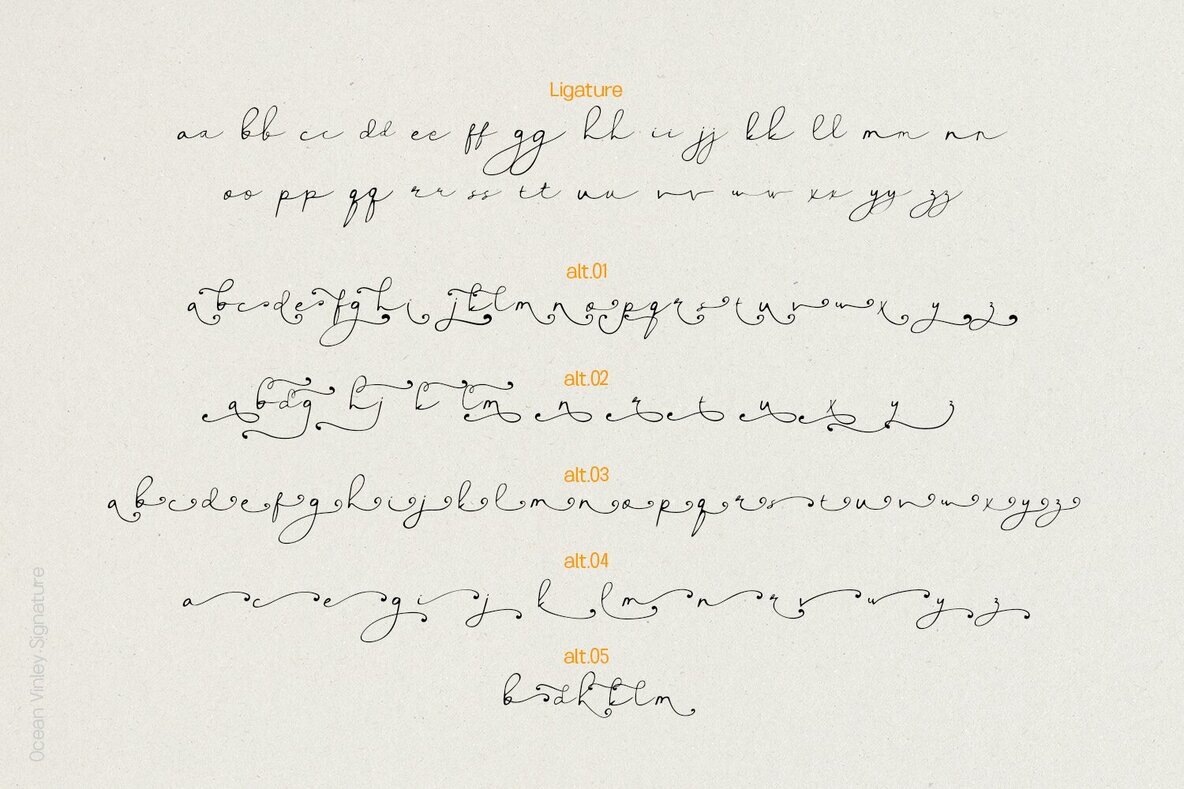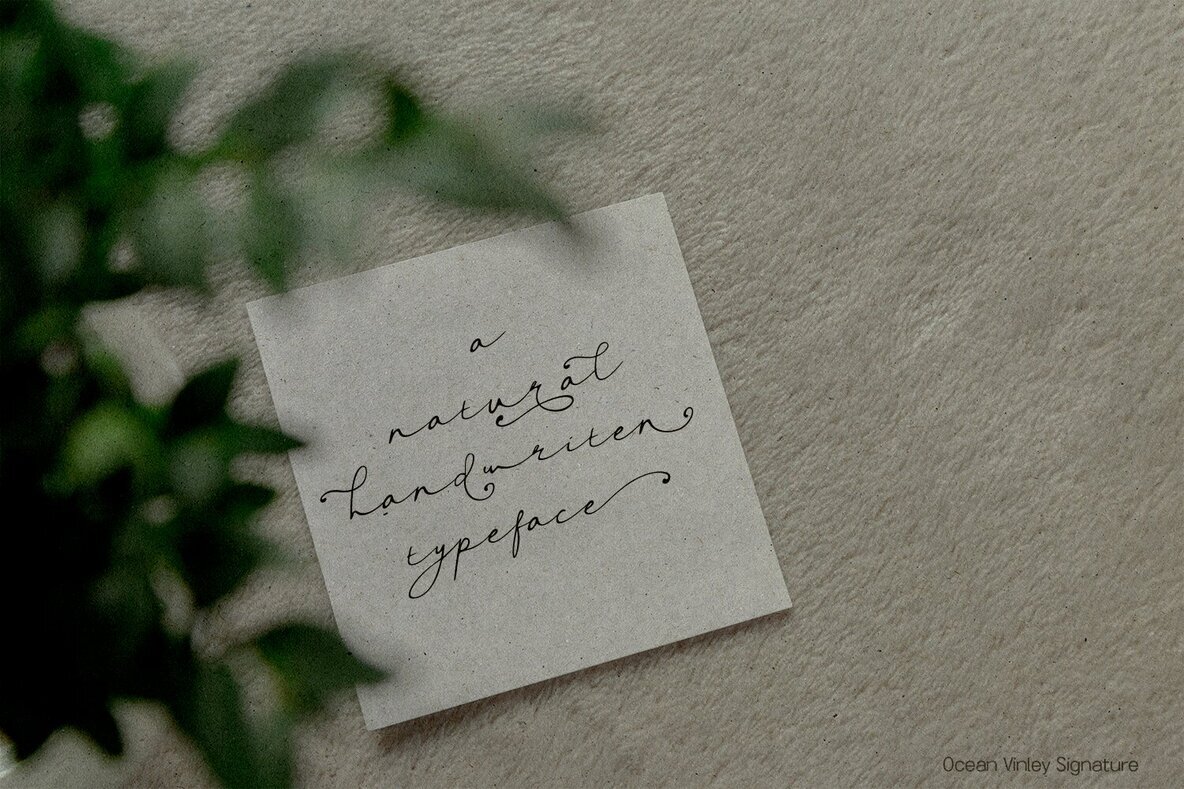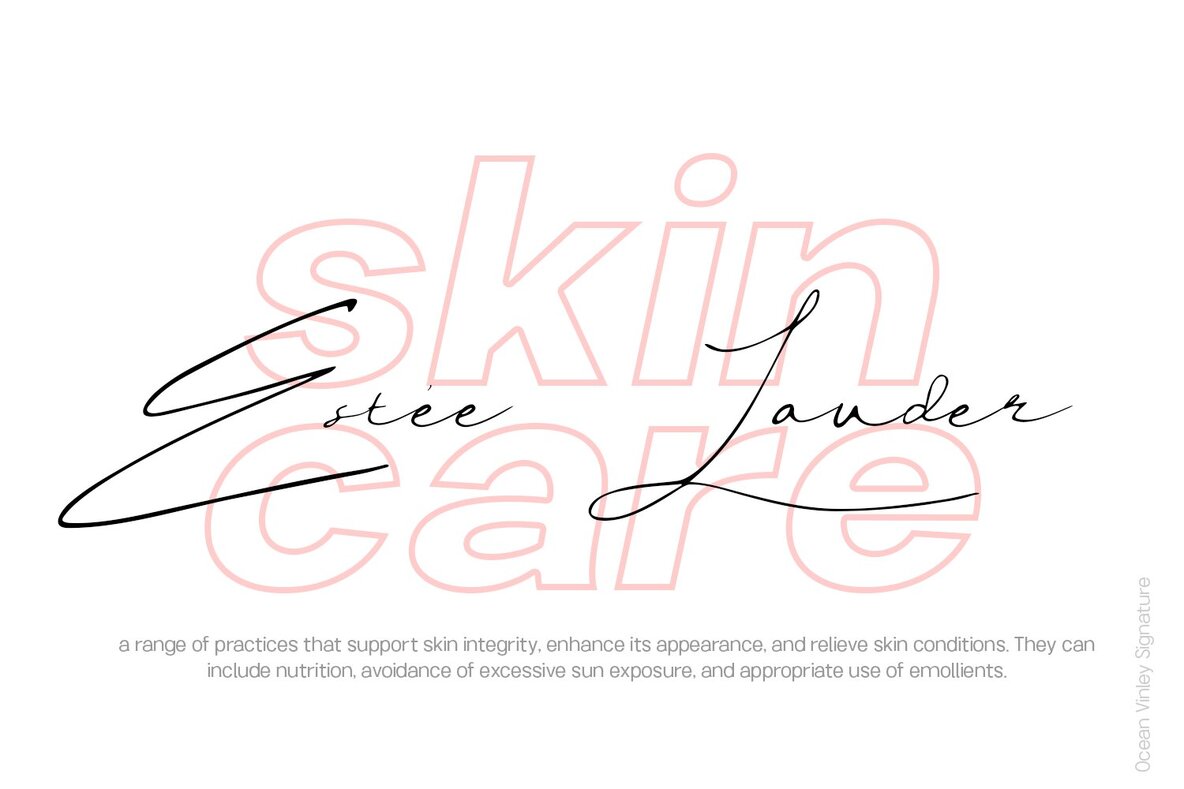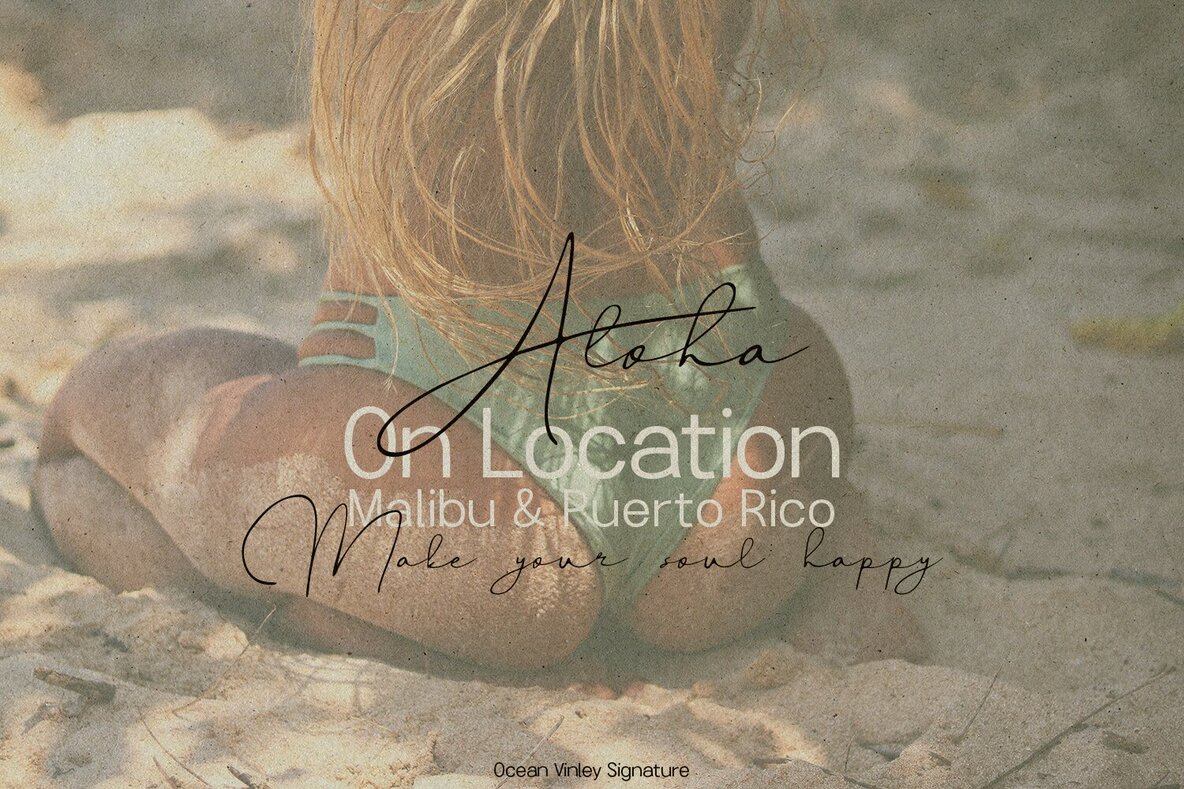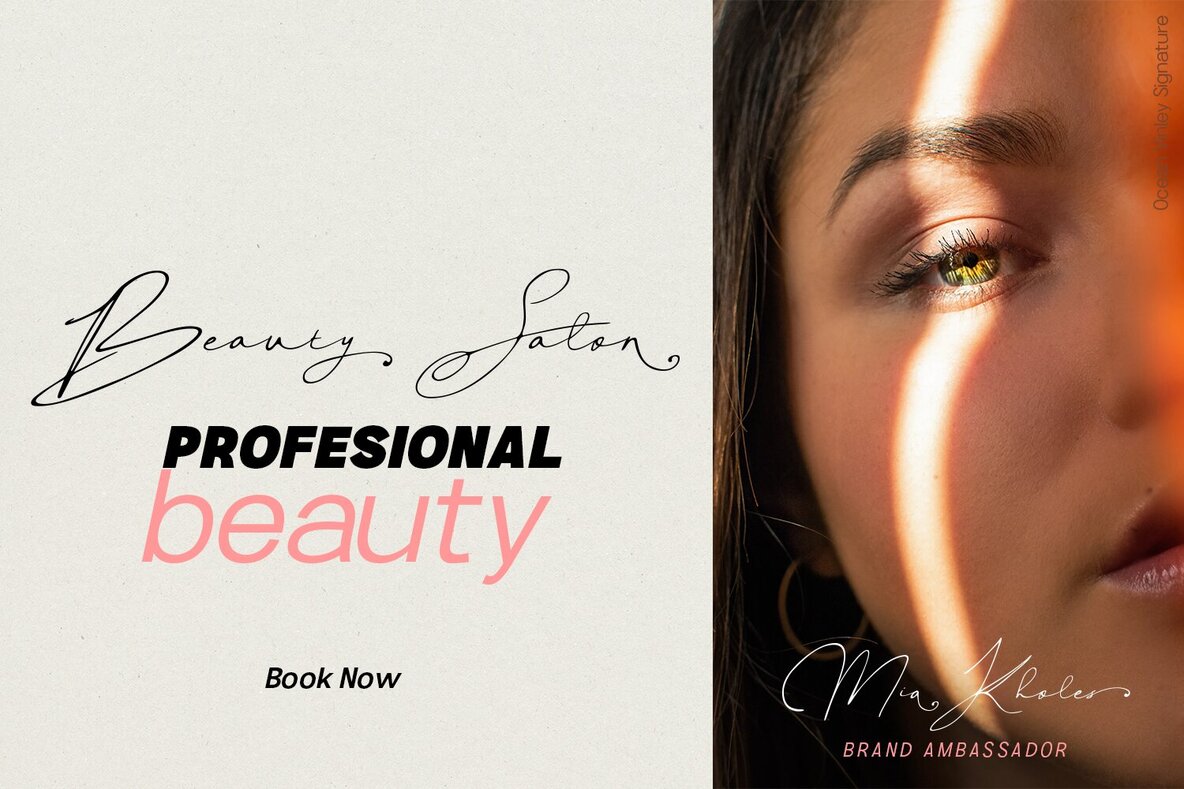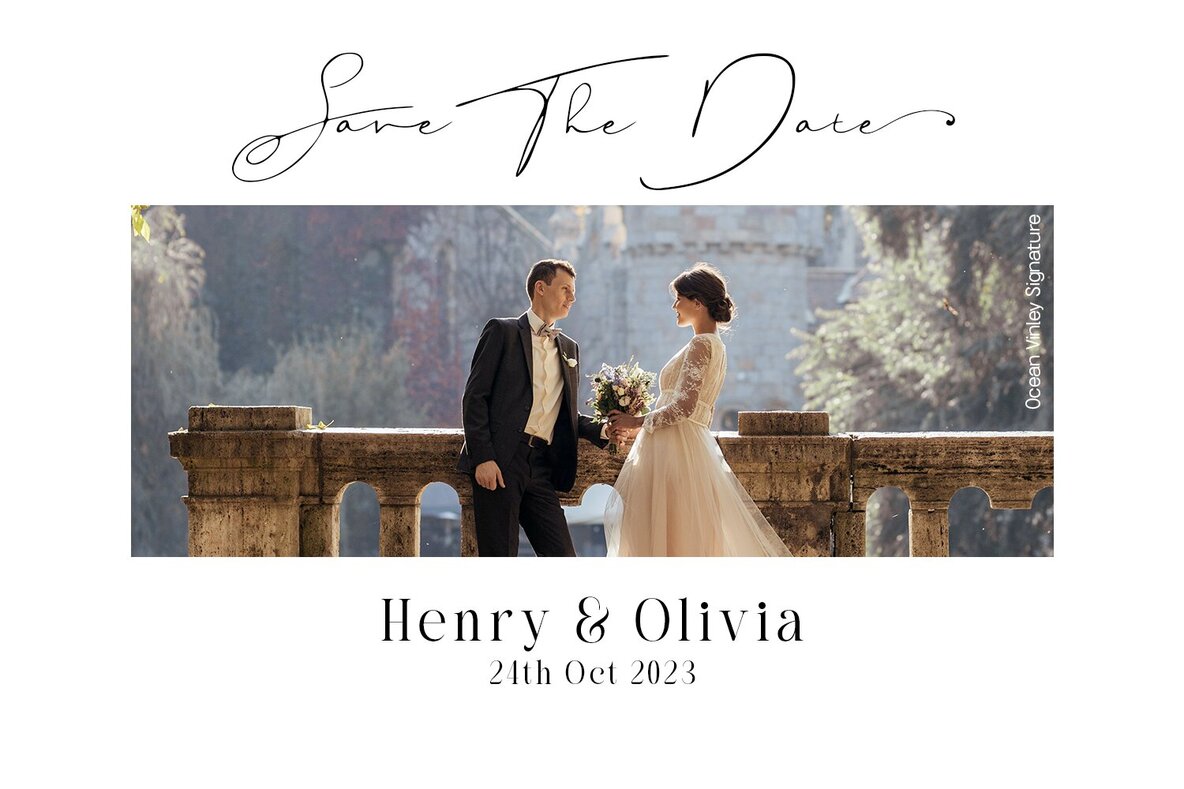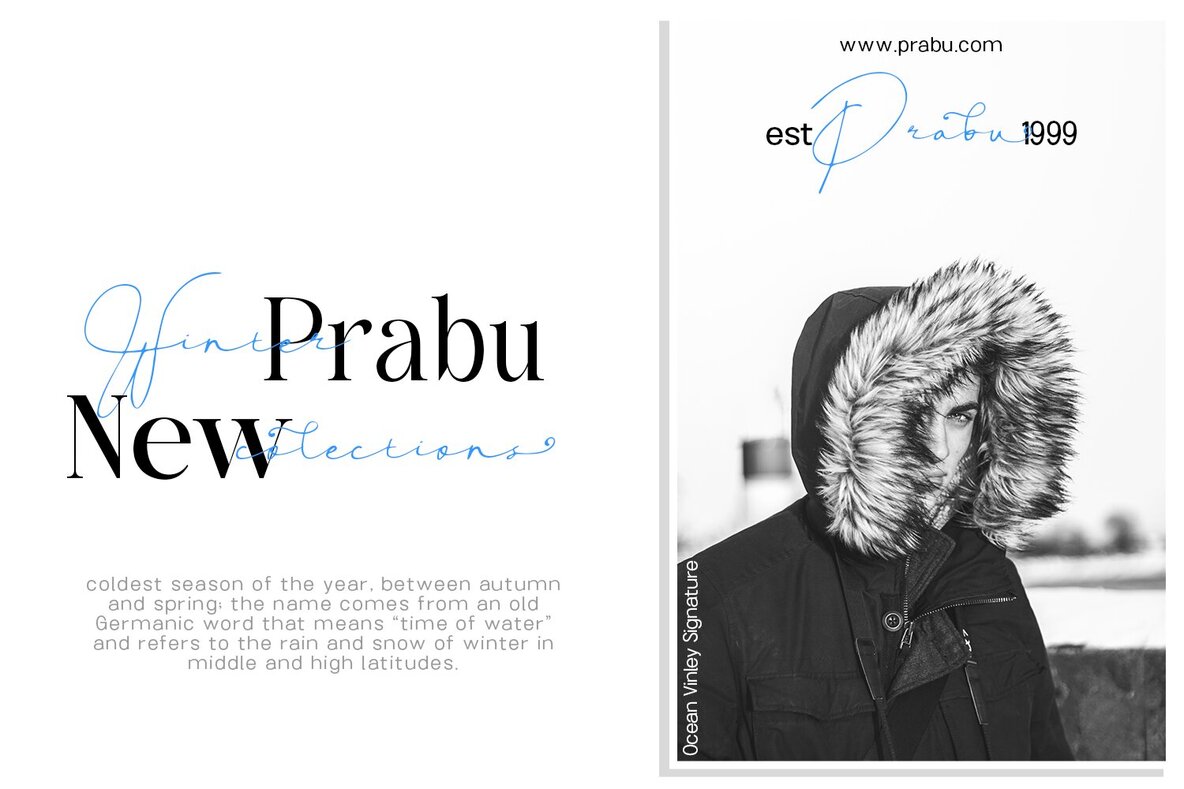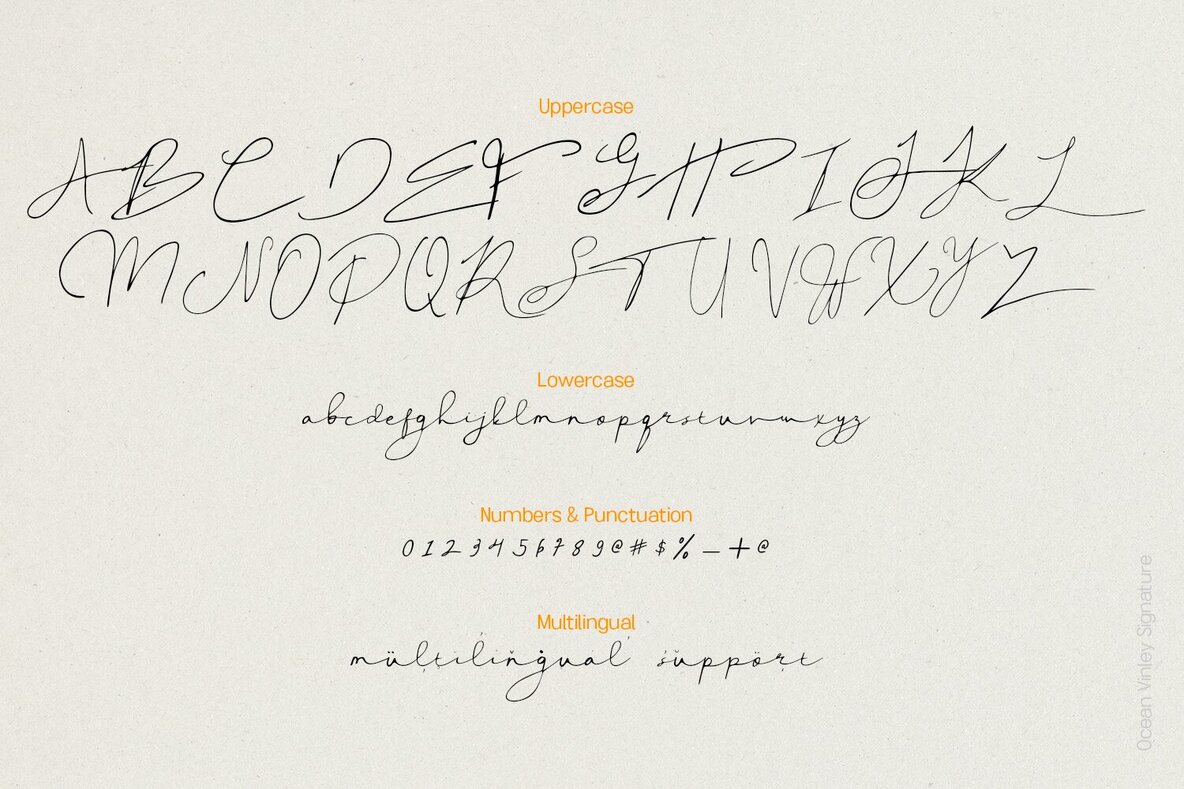
Ocean Vinley Font
Ocean Vinley Signature is a flowing handwritten font, described by an elegant touch, perfect for your favorite projects. Fall in love with its incredibly distinct and timeless style and use it to create spectacular designs!